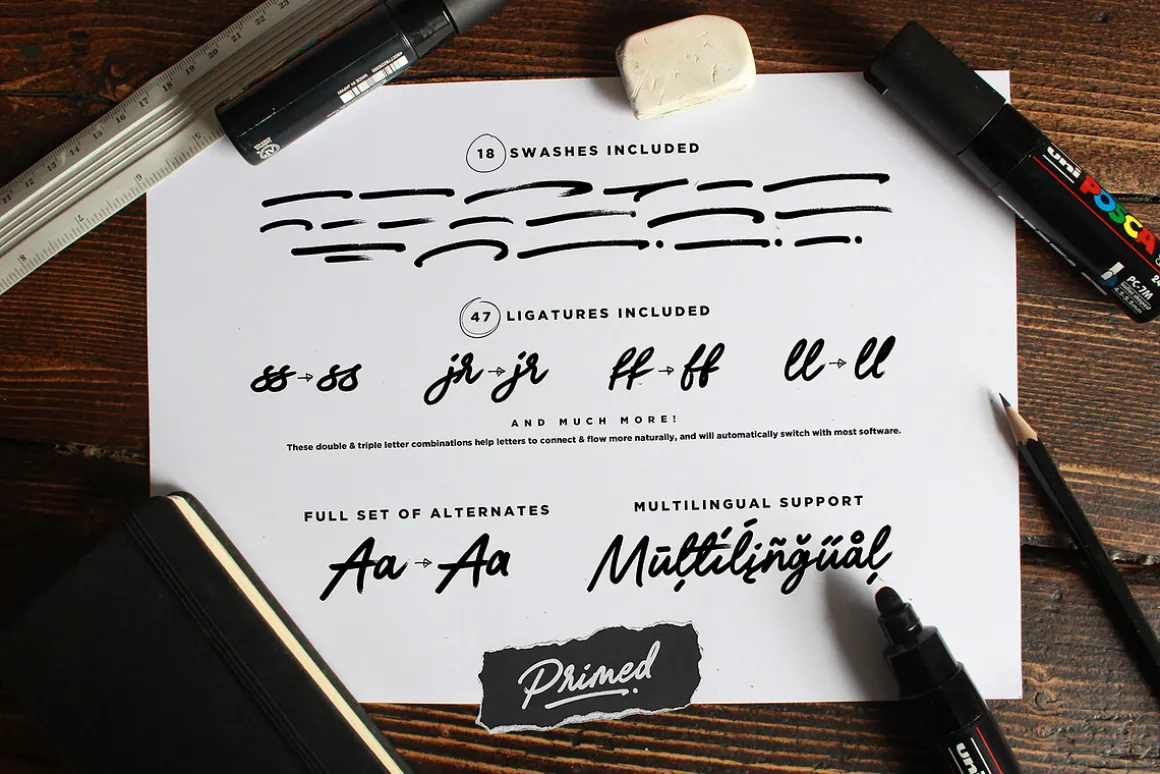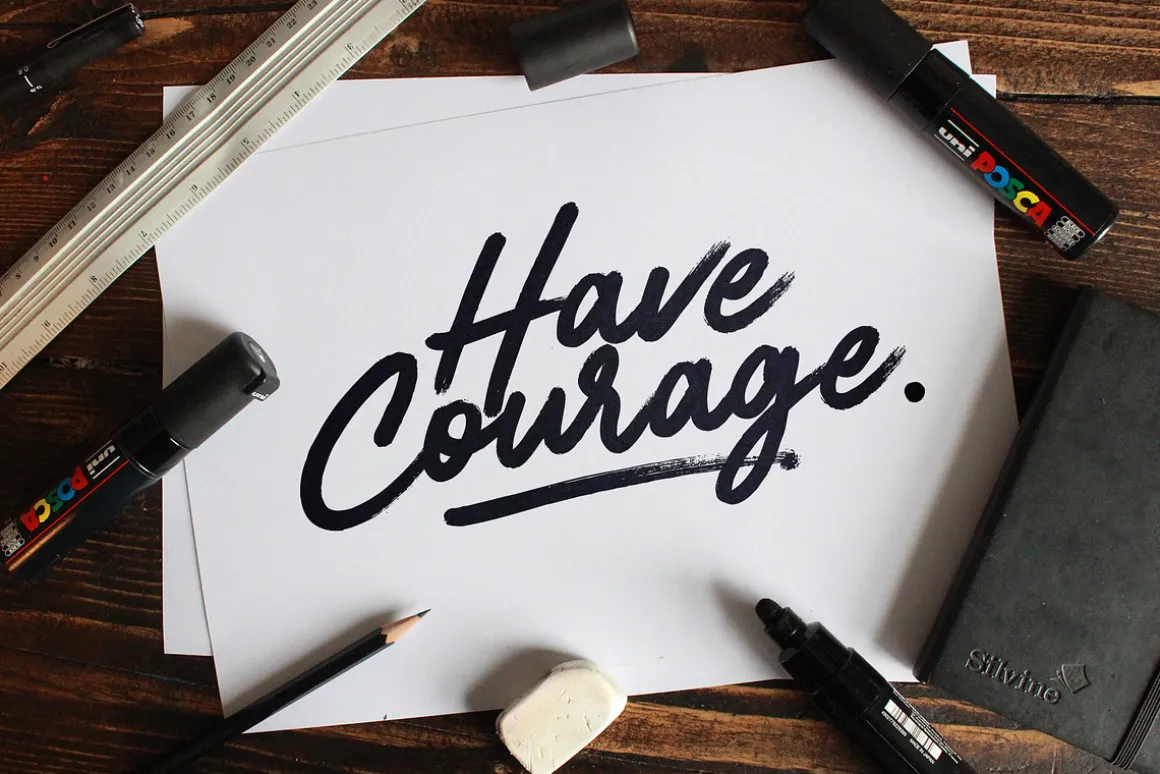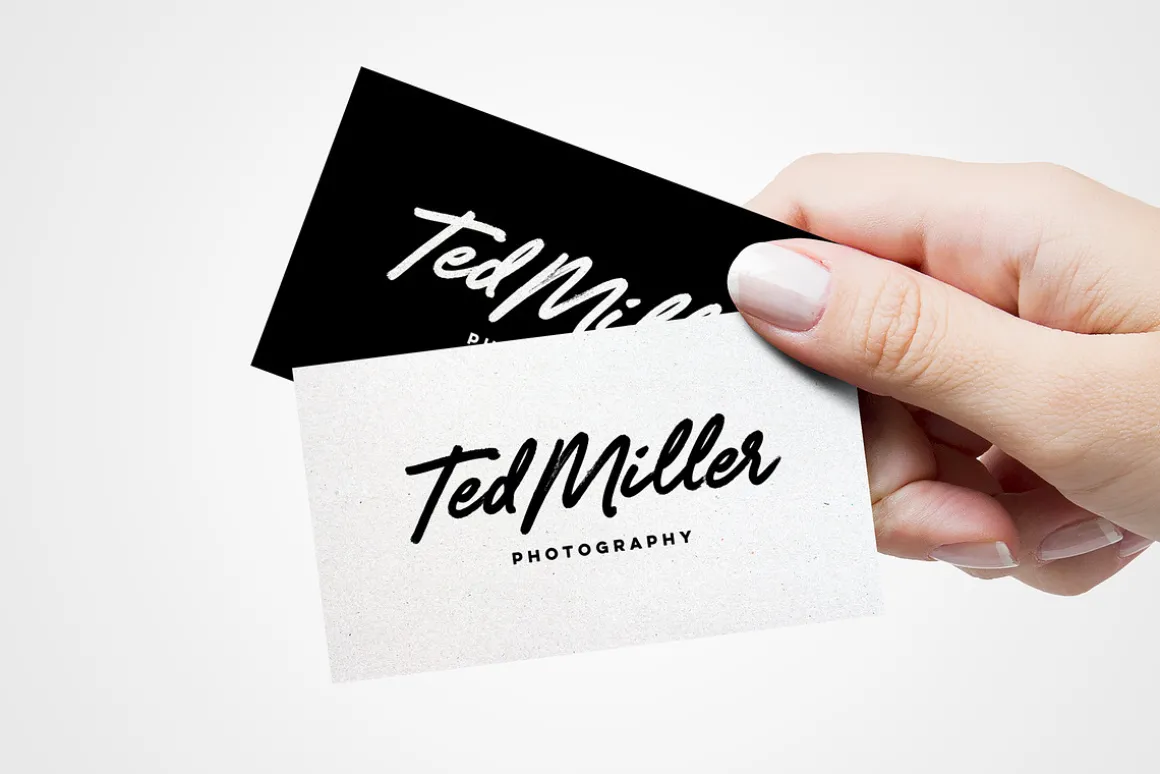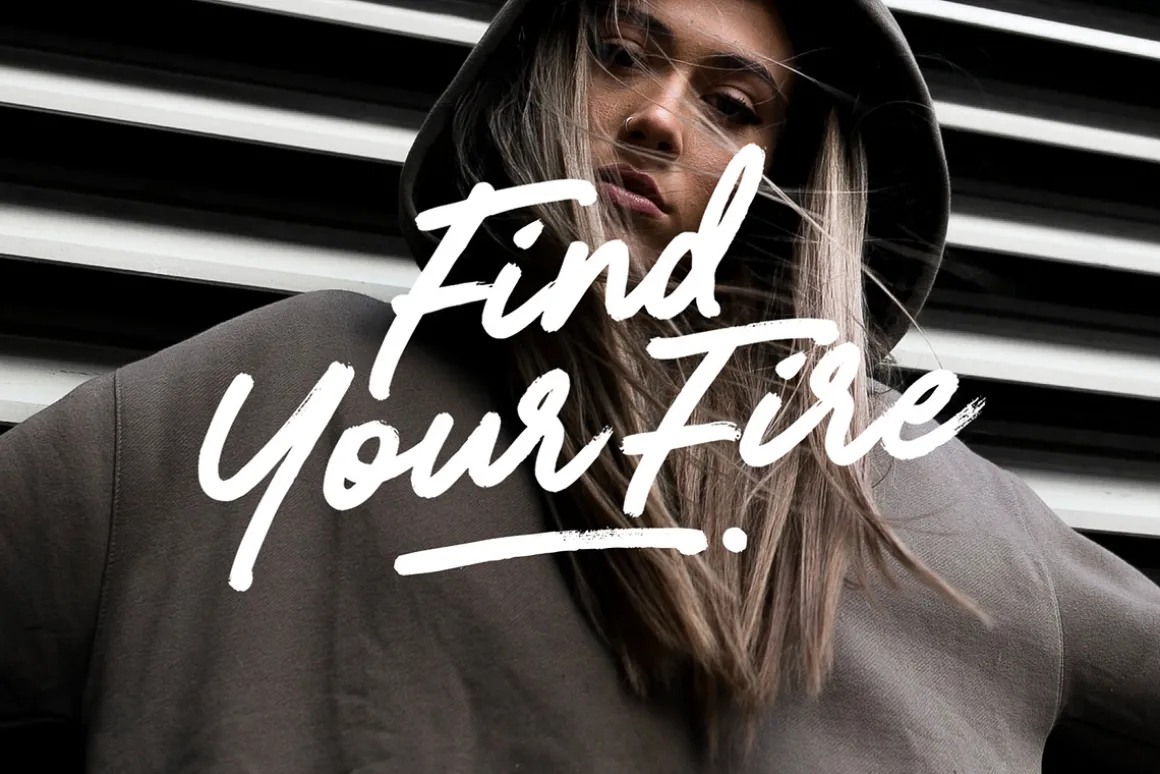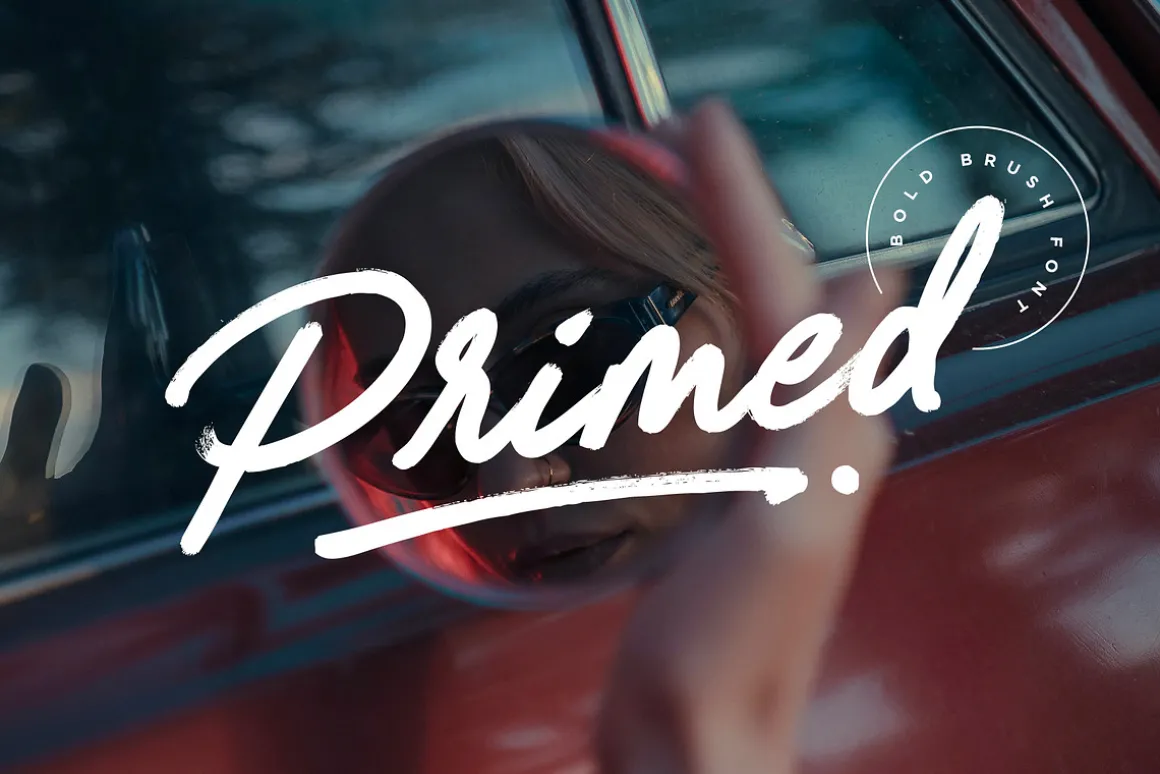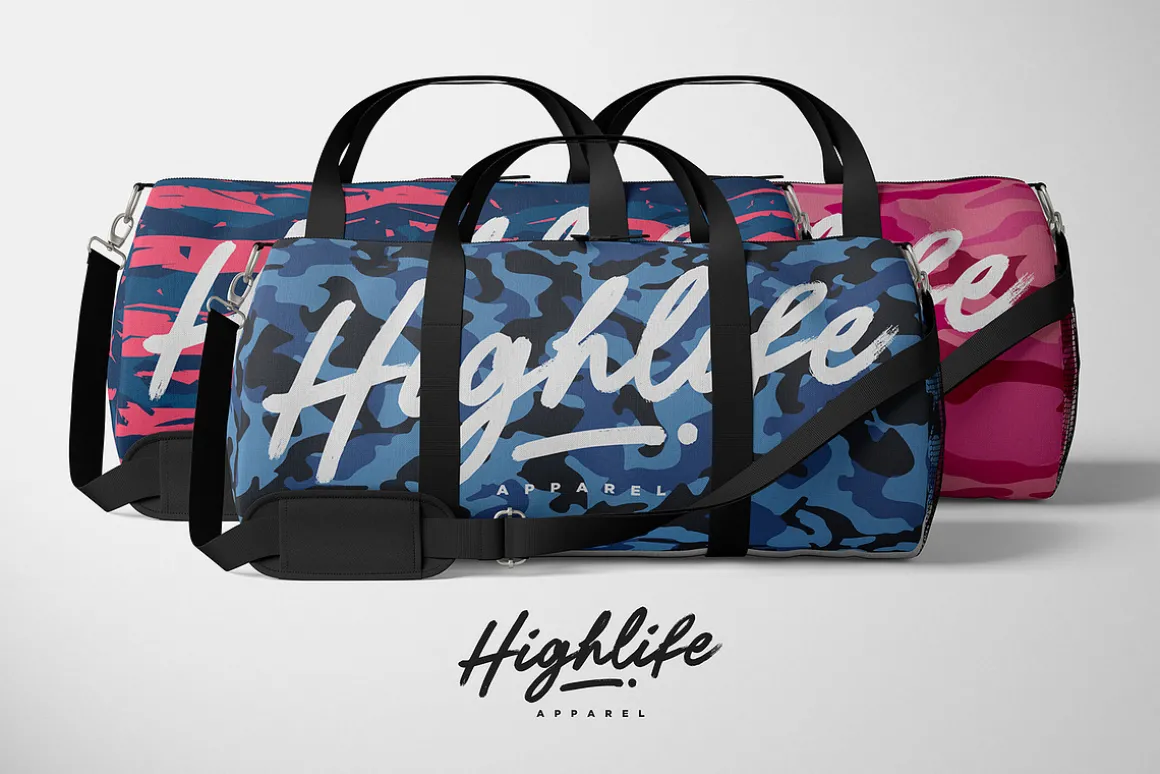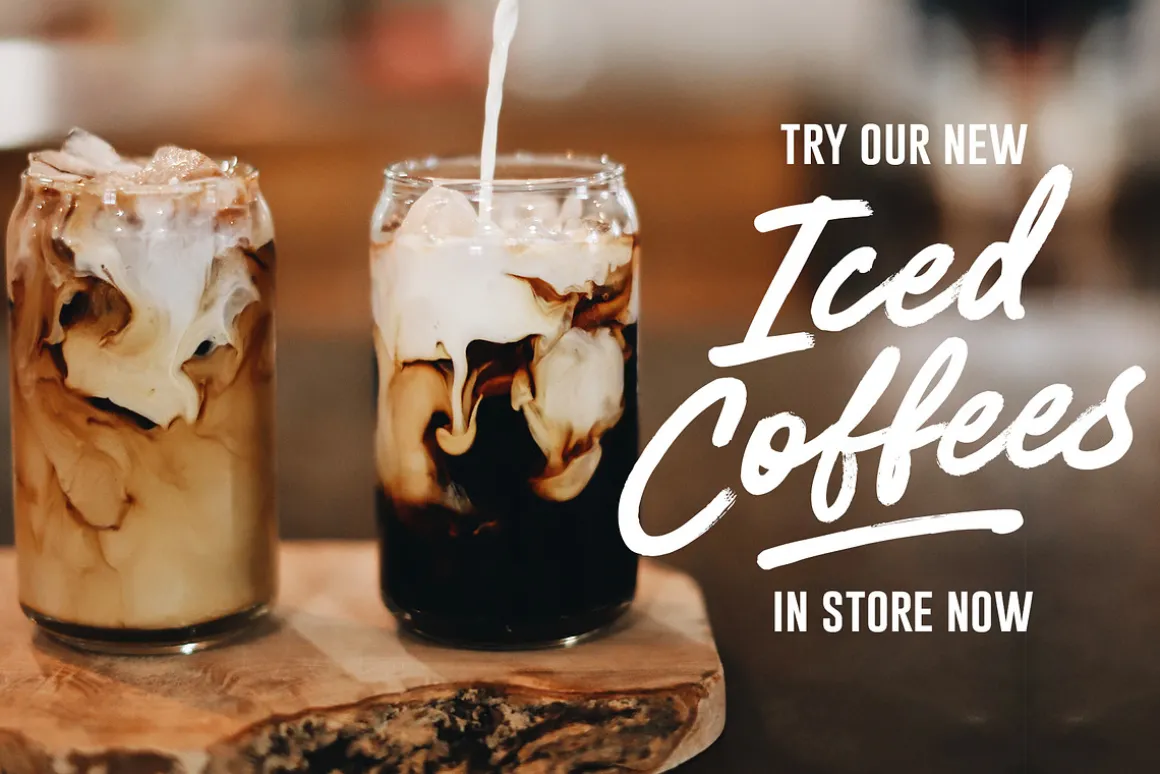
It’s bold, chunky, and ready to make a big impression – Primed is an authentic, hand-drawn brush font made with real marker pens. Perfect for unmissable display text, logos, handwritten quotes, product packaging and more!
As well as a full alternate set of upper & lowercase characters, Primed also includes a set of 18 swashes, ideal for underlining your lettering and adding that extra ‘custom’ style. The alternates and swashes are included as their own separate fonts.
Primed also includes 47 ligatures, these double and triple letter combinations will help letters connect and flow more naturally. The ligatures will automatically generate when using the Primed fonts with most software. Please get in touch if you need any help with these.
The Primed fonts contain language support for; English, French, Italian, Spanish, Portuguese, German, Swedish, Norwegian, Danish, Dutch, Finnish, Indonesian, Malay, Hungarian, Polish, Croatian, Turkish, Romanian, Czech, Latvian, Lithuanian, Slovak, Slovenian.